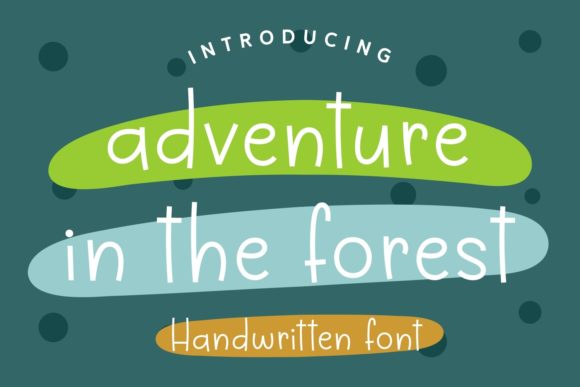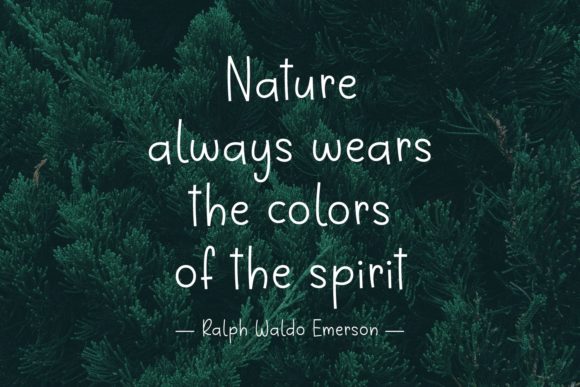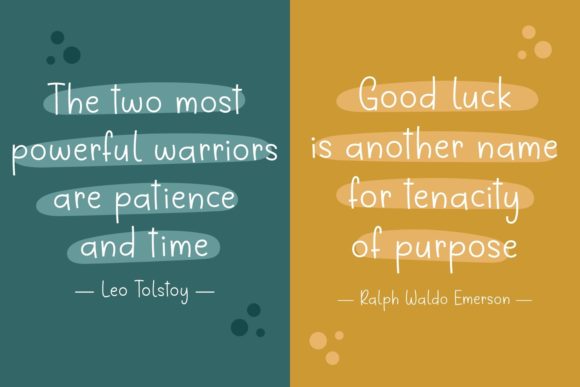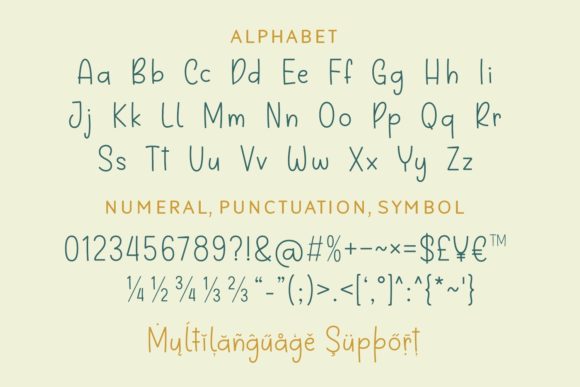
Adventure in the Forest Font
About Adventure in the Forest Font
Lions and Tigers and Bears – oh my! The Adventure in the Forest Typeface will be sure to bring life to your next project. This font features thin and simple handwritten glyphs making it highly versatile for use. Add Adventure in the Forest to your library today – you will not be disappointed!